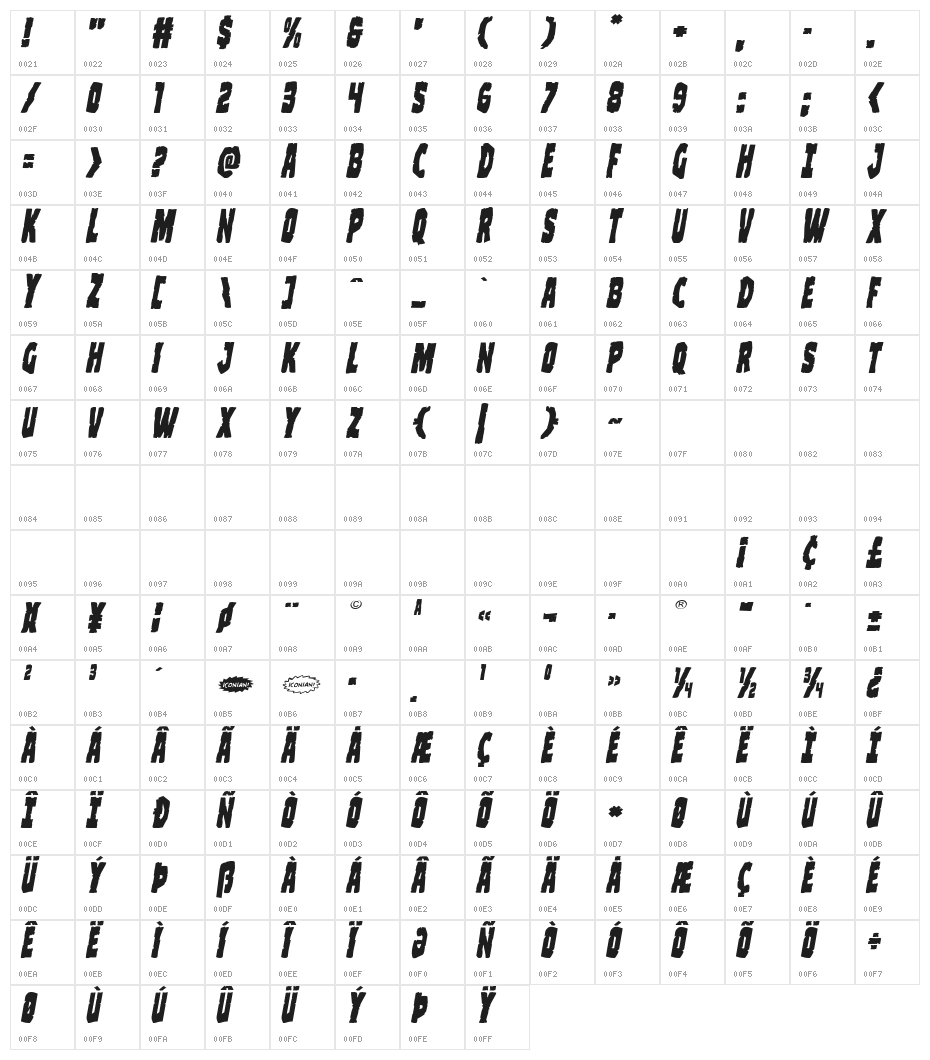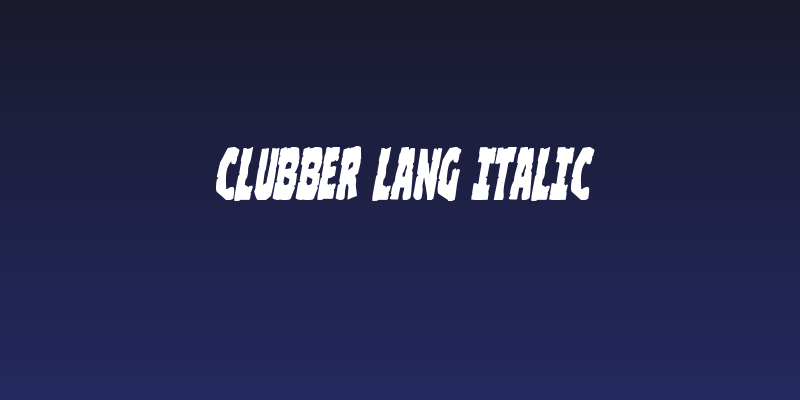
Clubber Lang Italic Font
Clubber Lang Italic Description
This font features a bold and dynamic style with a distinctly jagged and rough appearance. The characters are heavily slanted, giving it an italicized look that adds to its energetic and aggressive feel. The strokes are thick and uneven, creating a sense of movement and intensity. The uppercase and lowercase letters maintain a consistent design, with sharp edges and irregular forms that contribute to its unique aesthetic. The numbers and special characters follow the same bold and rugged style, making it suitable for attention-grabbing designs.
| Proposed Projects | Ideal for poster designs, music album covers, sports branding, and any project requiring a bold, impactful statement. |